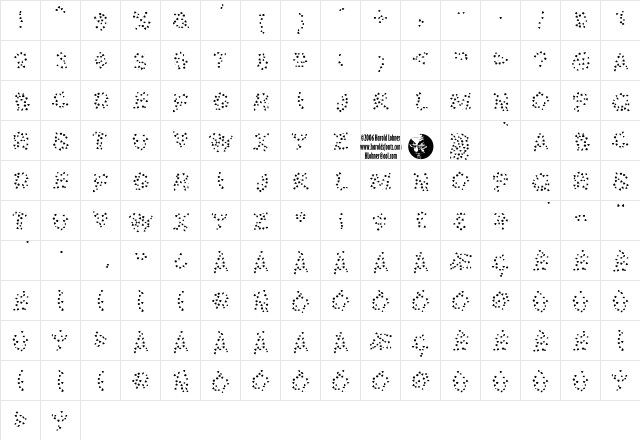
GaudiRed Tile Regular
Design Context for GaudiRed Tile Typeface
GaudiRed Tile is a composed and adaptable typeface that performs quietly and consistently across a wide range of design contexts.